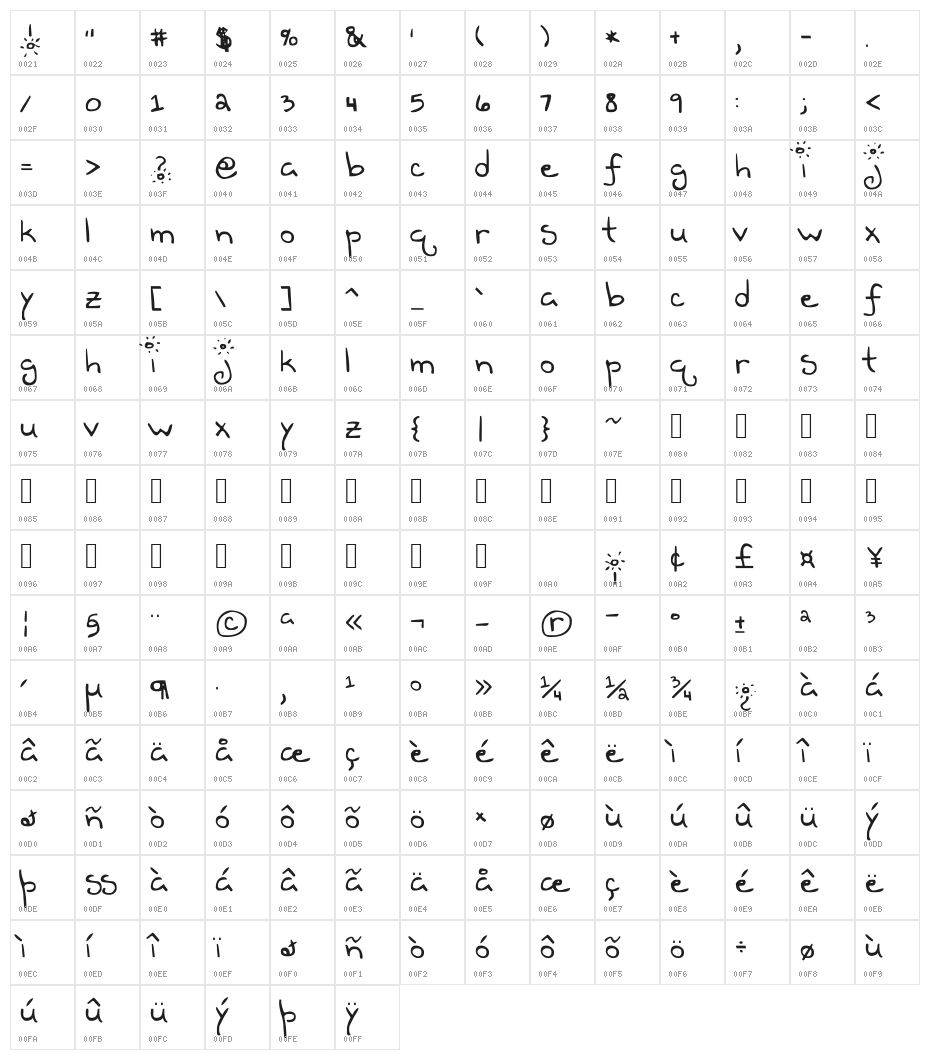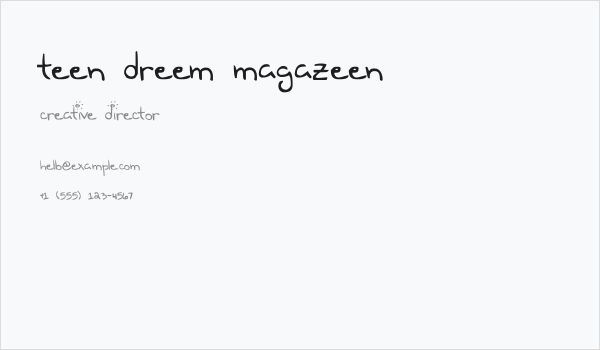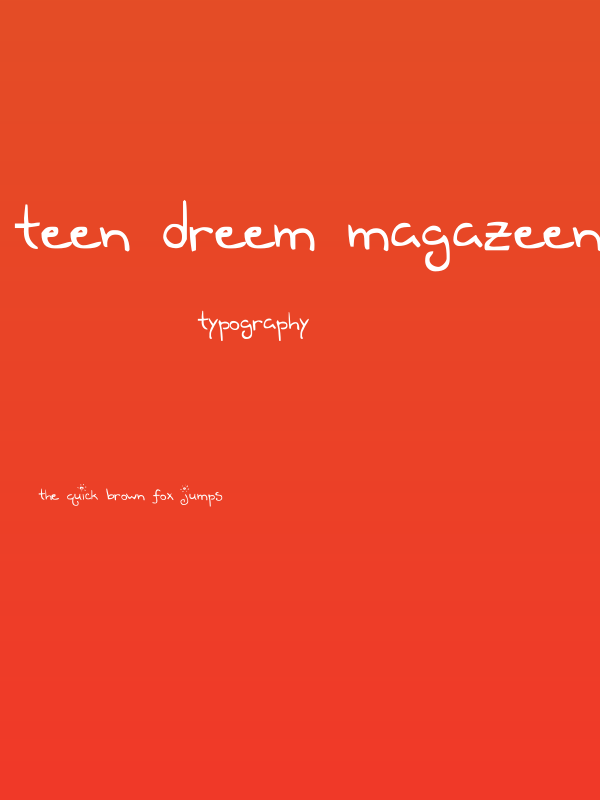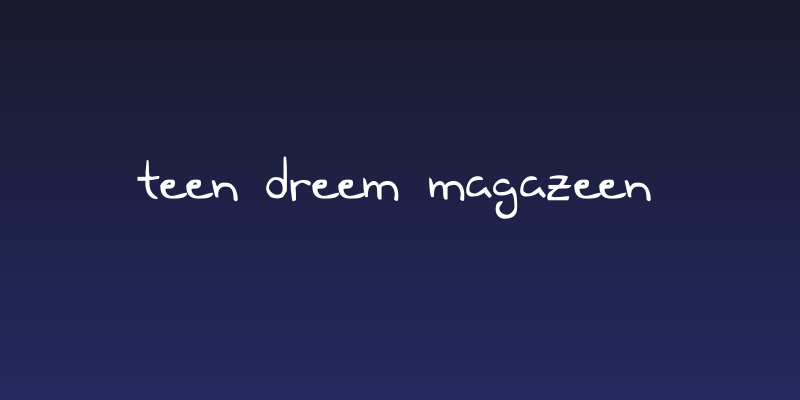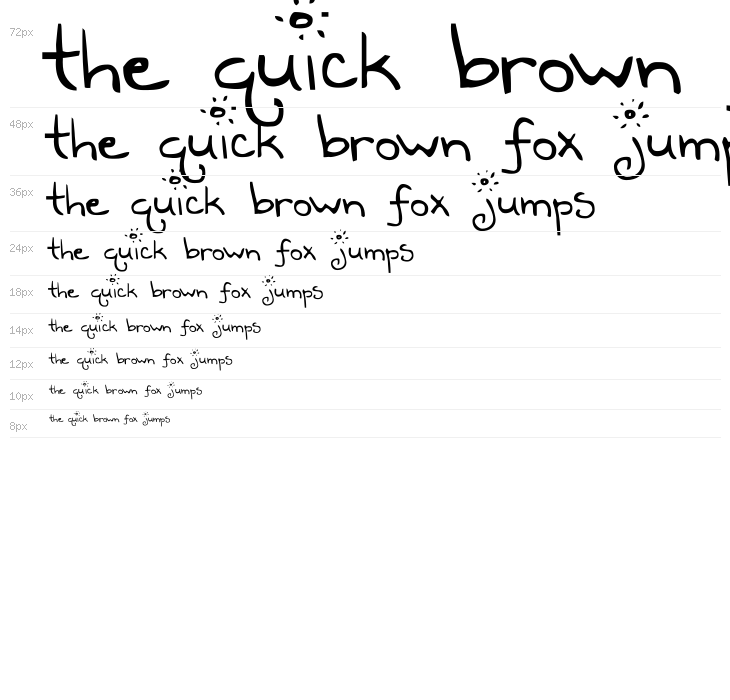
Teen Dreem Magazeen Font
Teen Dreem Magazeen Description
This playful and whimsical font features a handwritten style with a casual and informal appearance. The characters are slightly irregular, adding a sense of spontaneity and creativity. The strokes are smooth and rounded, giving it a friendly and approachable feel. The font includes both uppercase and lowercase letters, numerals, and a variety of special characters, making it versatile for different uses. Its unique style is characterized by quirky details, such as the playful dots and swirls that accompany some letters, enhancing its charm and individuality.
| Proposed Projects | Ideal for children's books, greeting cards, playful branding, and creative projects that require a fun and informal touch. |